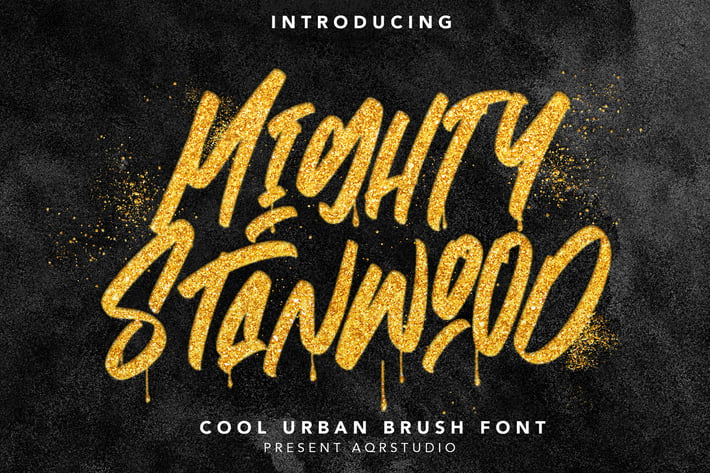
MightyStanwood - Urban Brush Font
aqrstudio
MightyStanwood - Urban Brush Font contains a lowercase, uppercase, symbol, and also supports multi-language. There’s a lot of ligature in this font. MightyStanwood - Urban Brush Font also comes with ligatures, stylistic alternates and many more.
this font suitable for fashion, branding, catalog and other design that you want.